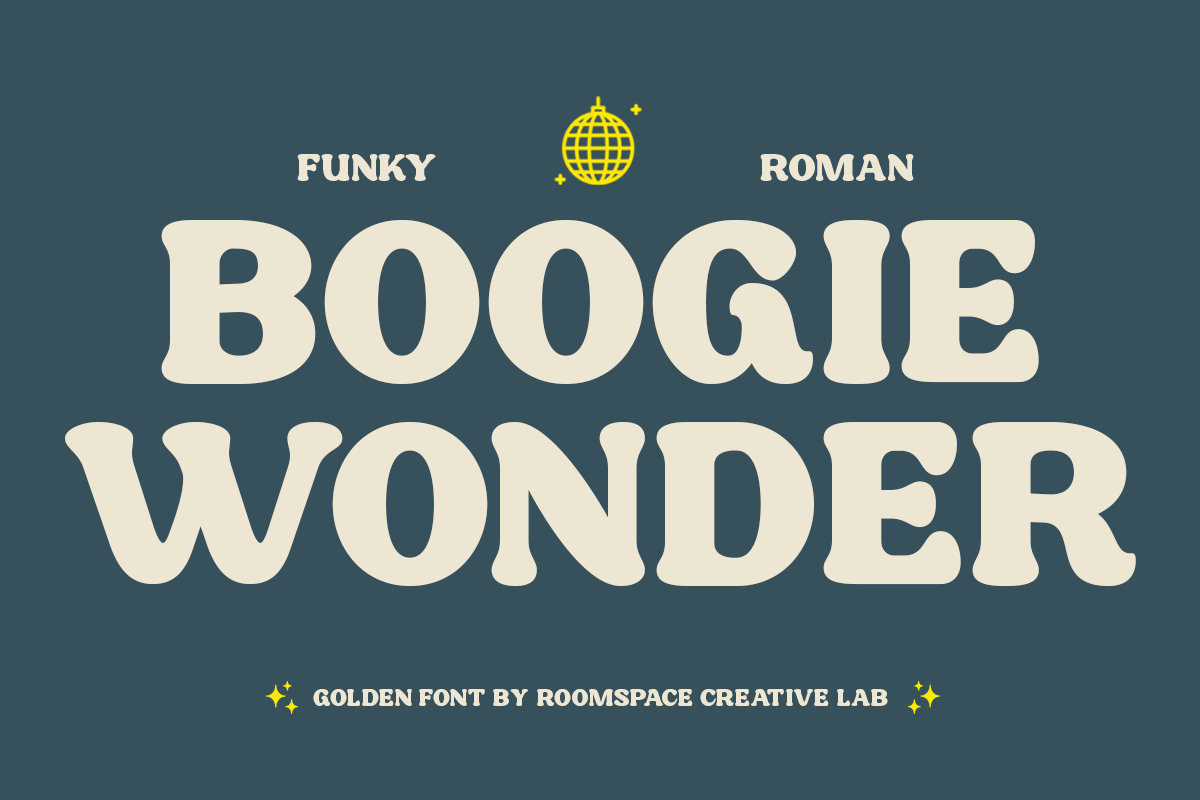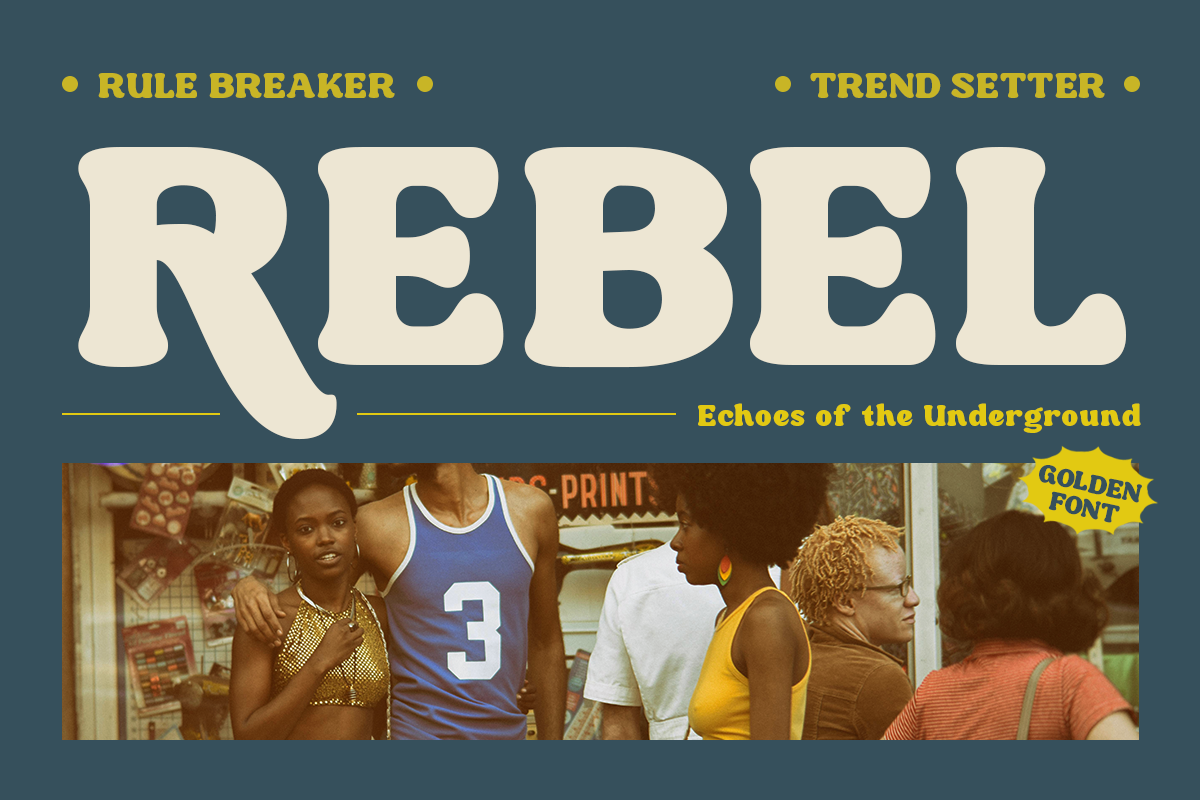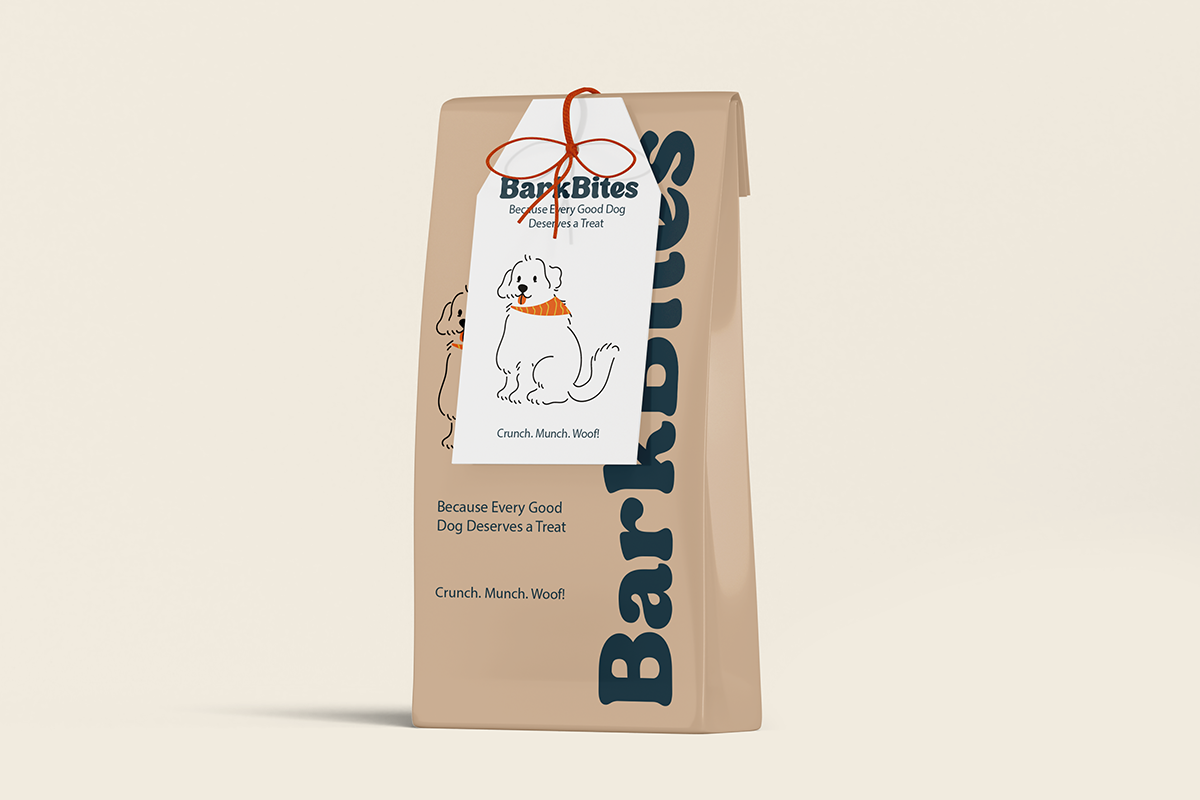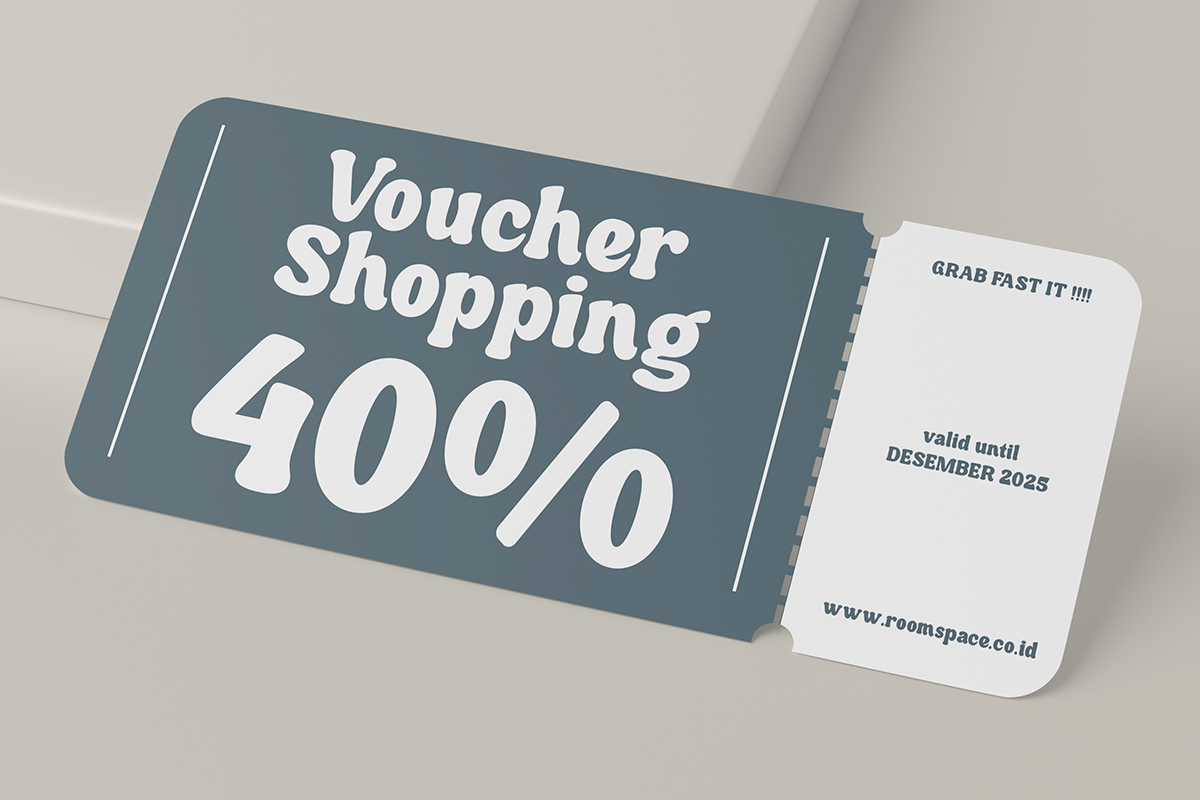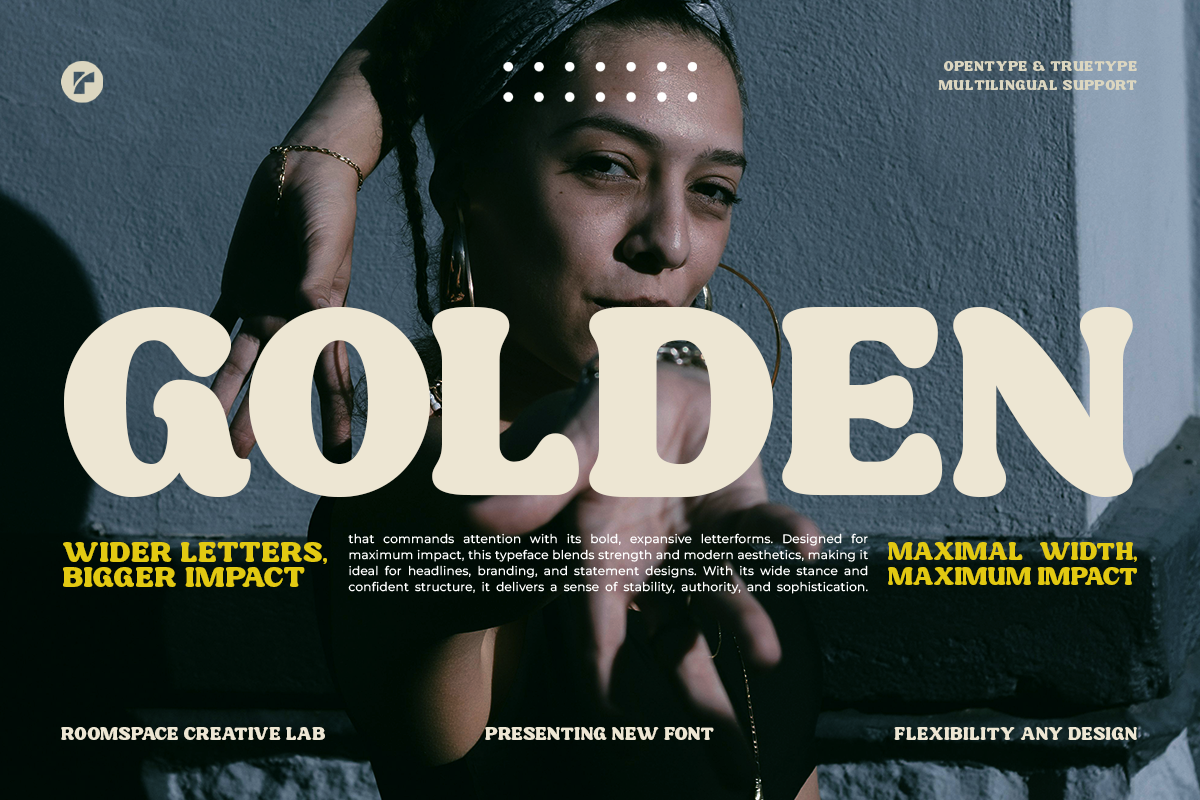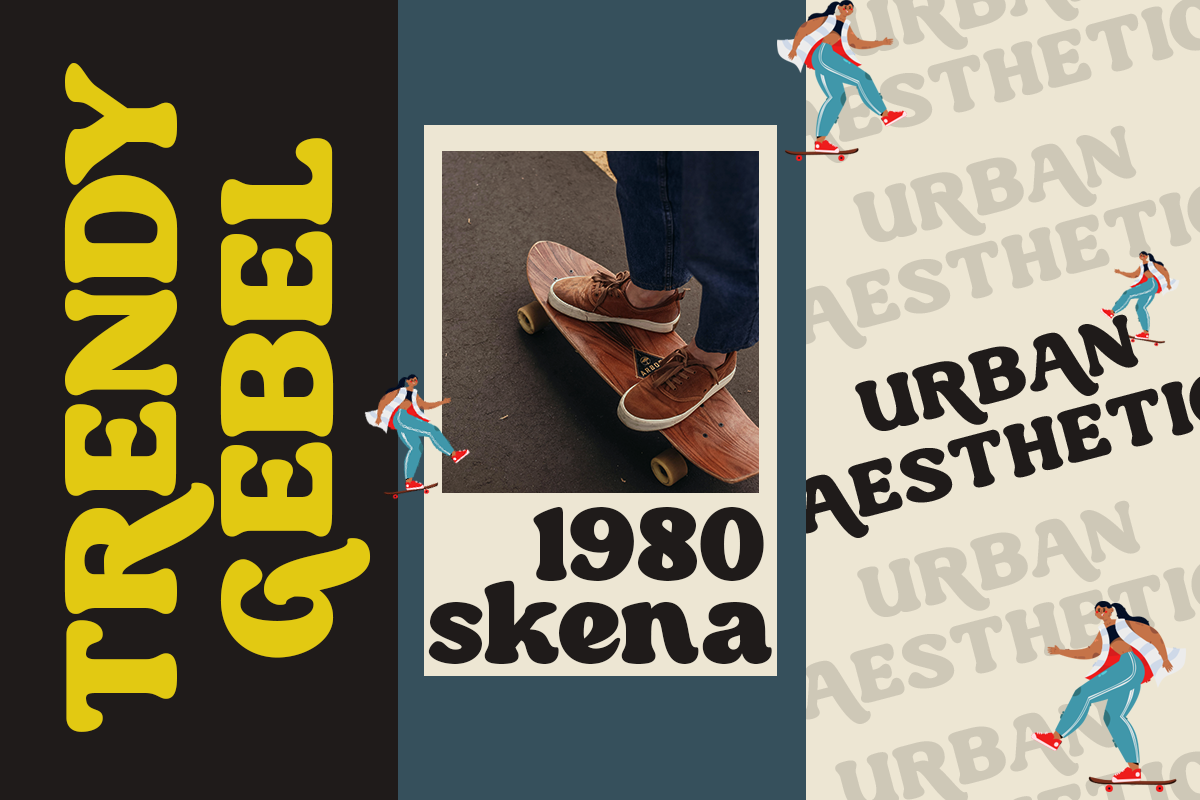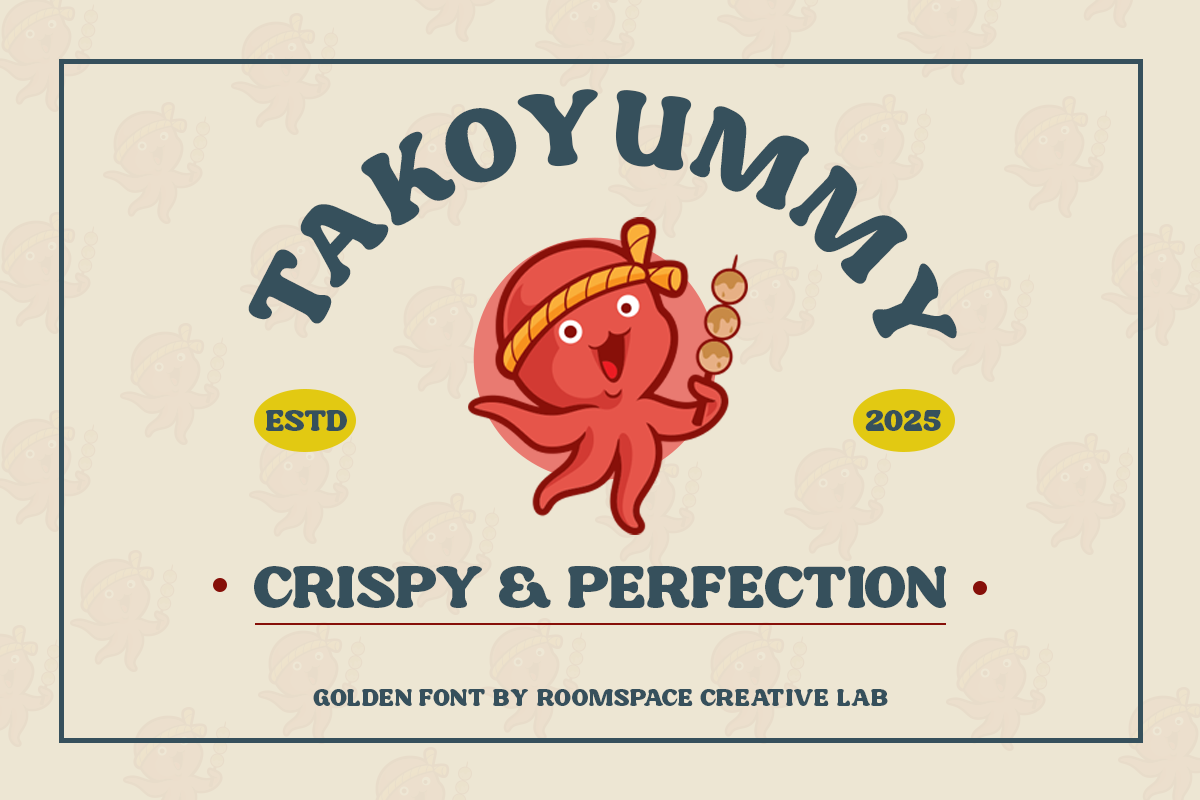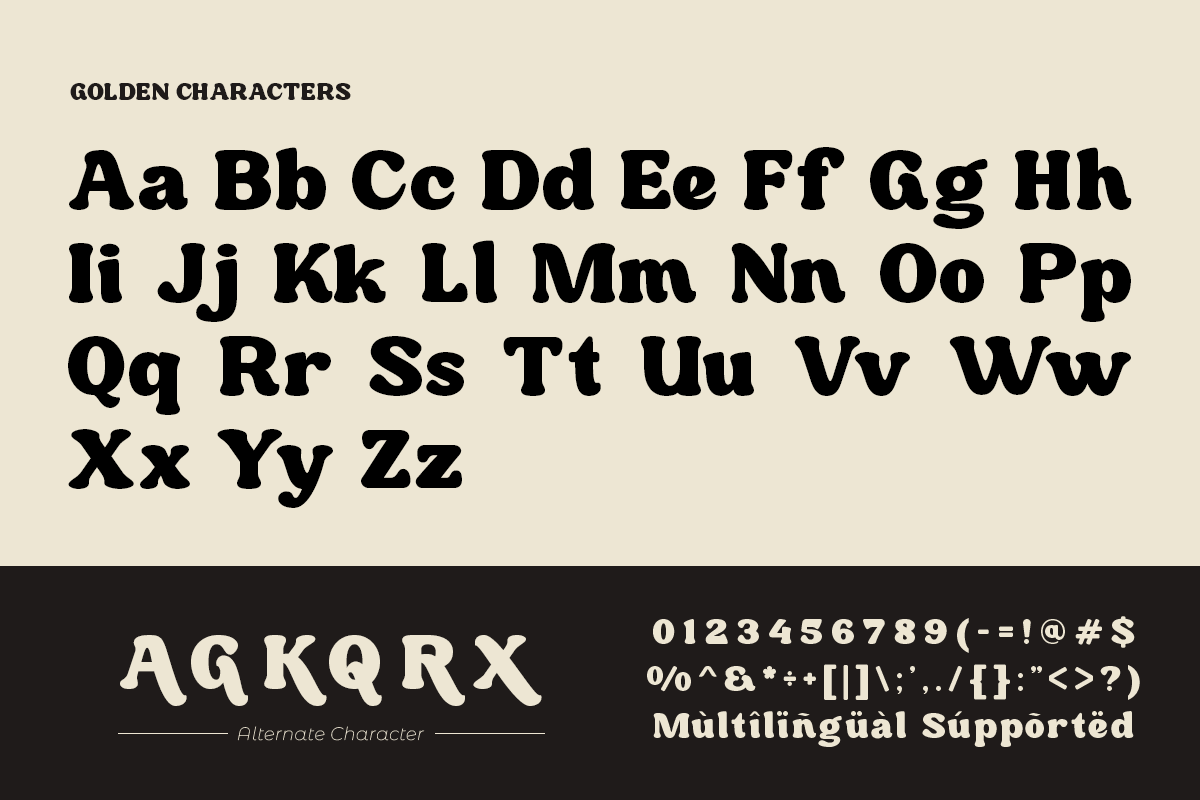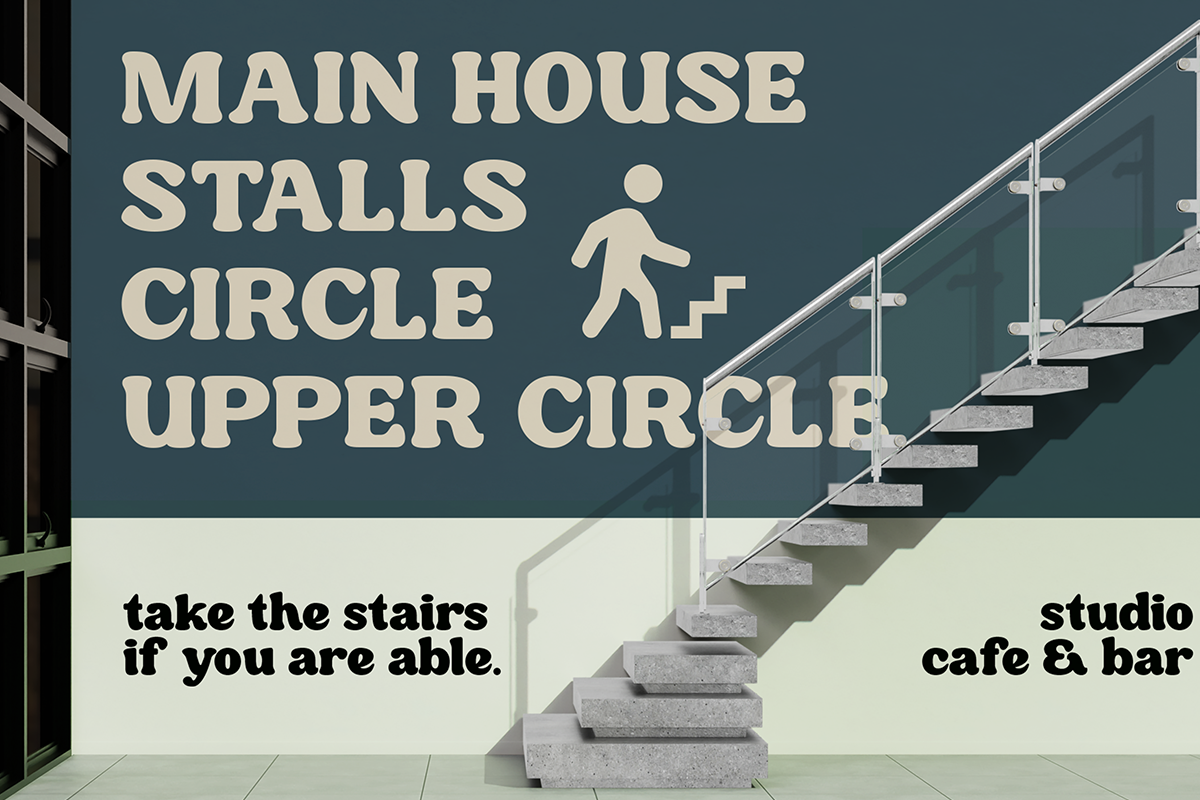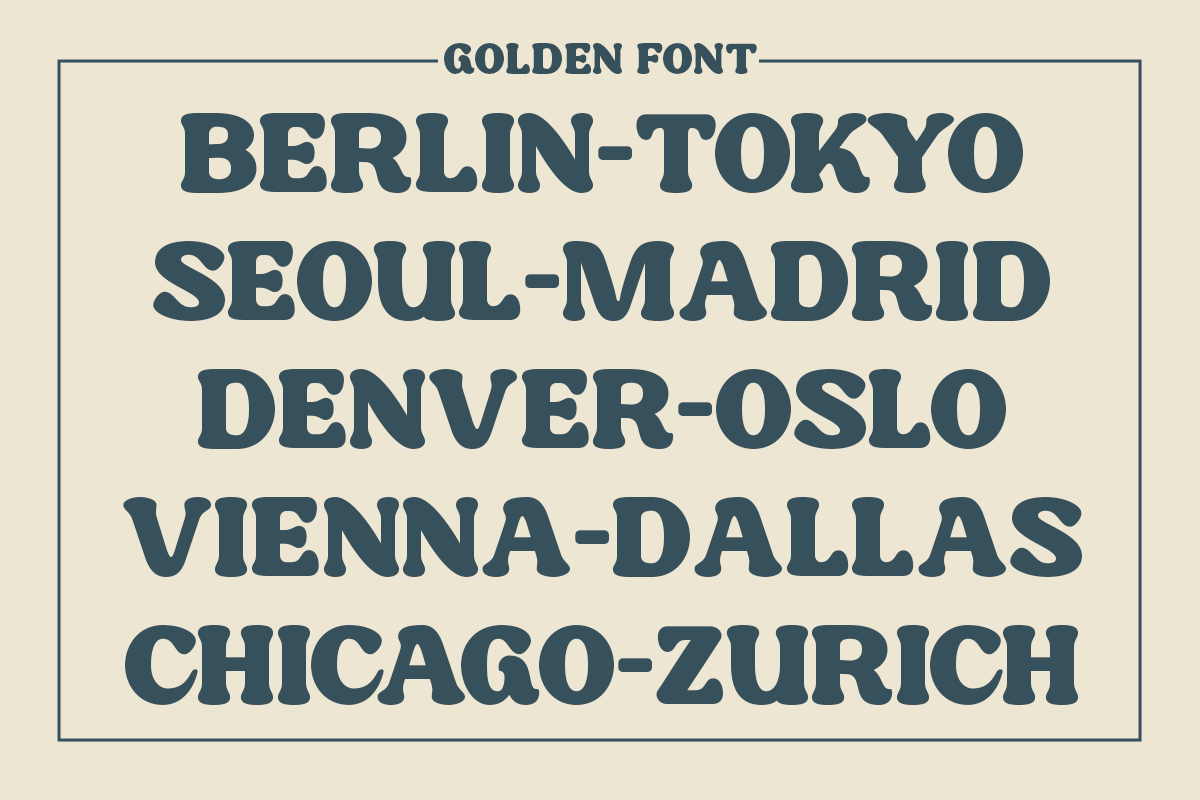
Golden Fat Elegant Modern Retro Font
Golden Fat Serif is a bold and stylish typeface that combines retro aesthetics with modern elegance. Designed for maximum impact, this wide, chunky serif font is perfect for branding, logos, wedding invitations, fashion magazines, social media graphics, and more. Its groovy yet classy appeal makes it ideal for vintage-inspired designs, adding a touch of nostalgia while maintaining a contemporary feel. Whether you're crafting eye-catching headlines, posters, or stylish layouts, Golden Fat Serif delivers a strong and confident presence. Elevate your projects with this versatile font that blends fun, sophistication, and creativity in every letterform.
- Regular & Italic